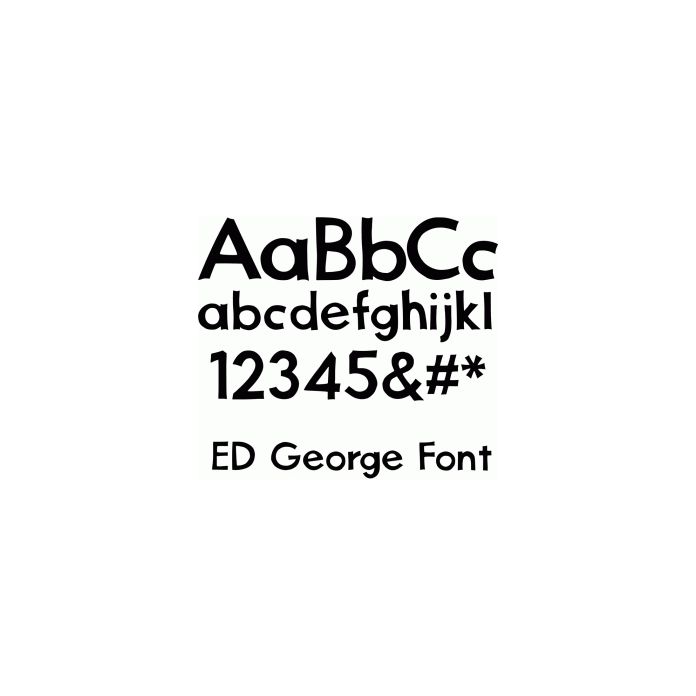
ed george font
This font has a great handcrafted feel. Includes uppercase and lowercase letters, numbers, and basic punctuation. For more about Emily Dyer please visit http://www.emilydyer.com